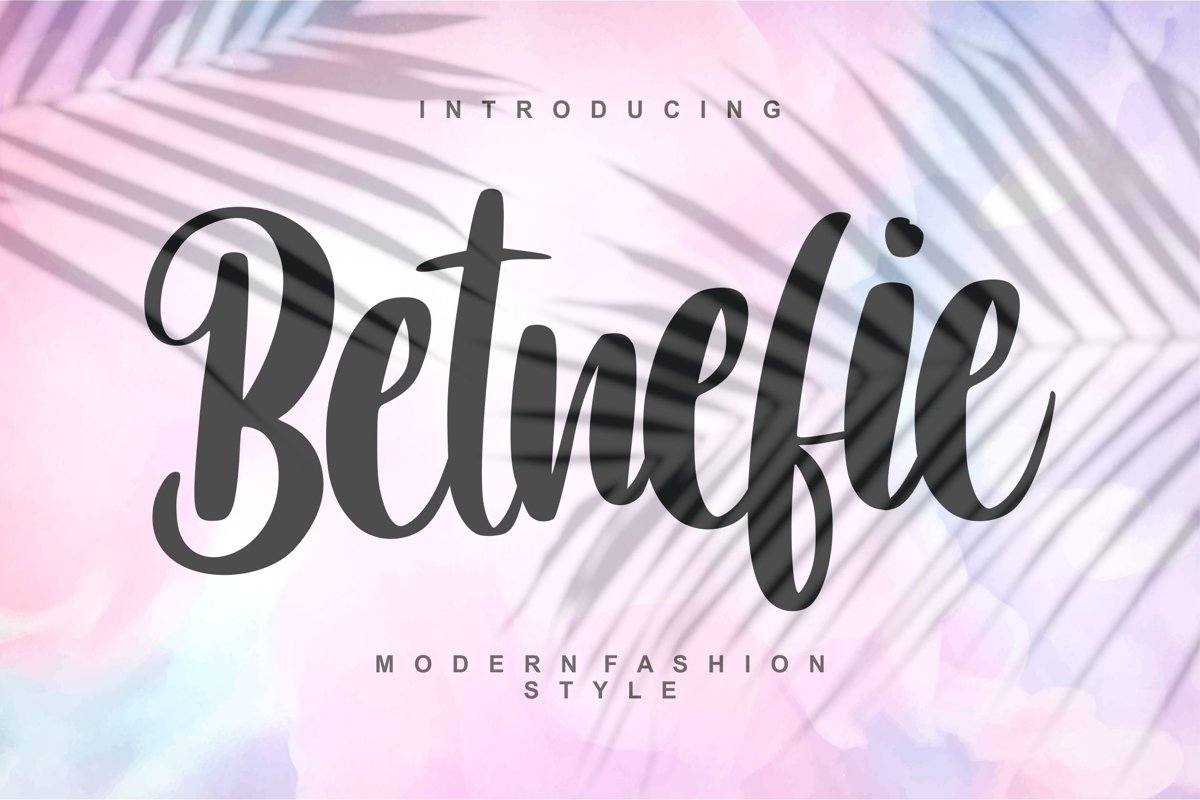
Betnefie | Modern Fashion Style Font
Betnefie
**Betnefie | Modern Fashion Style Font** with a calligraphy style, So beautiful on invitation like greeting cards, branding materials, business cards, quotes, posters, and more!
* Tons of glyphs
* Alternates and Ligatures
* Fonts include **Multilingual Support**